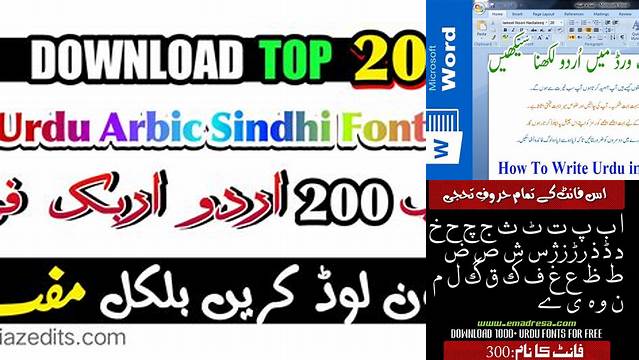
Download Free Urdu Fonts For Word 2007
Hey guys! Are you looking to spice up your Microsoft Word 2007 documents with some beautiful Urdu fonts? You've come to the right place! Using the right font can make your documents look professional and engaging, especially when writing in a language like Urdu that has such a rich calligraphic tradition. In this article, we'll dive deep into how to find, download, and install free Urdu fonts, specifically for Microsoft Word 2007. We’ll also cover some common issues you might face and how to troubleshoot them. So, let's get started and make your documents stand out!
1. Why Use Urdu Fonts in Microsoft Word 2007?
Using Urdu fonts in Microsoft Word 2007 can greatly enhance the aesthetic appeal and readability of your documents. Urdu, with its elegant script, adds a touch of sophistication and cultural richness to any written material. Whether you are drafting a formal letter, creating a presentation, or composing a creative piece, the right Urdu font can make a significant difference. The clarity and style of the font can improve the overall impression and ensure that your message is conveyed effectively. Moreover, using specific Urdu fonts can also cater to different contexts and audiences. For instance, a traditional Naskh font might be suitable for formal documents, while a more stylized font could be used for creative projects. This versatility allows you to tailor your documents to suit various needs and preferences, making them more engaging and impactful. Ultimately, the use of appropriate Urdu fonts demonstrates attention to detail and a commitment to presenting your content in the best possible light. This not only enhances the visual appeal but also ensures that your documents are easily readable and professionally presented.
3. Top Urdu Fonts for Microsoft Word 2007
When it comes to choosing the top Urdu fonts for Microsoft Word 2007, several options stand out for their readability, aesthetic appeal, and compatibility. One popular choice is Alvi Nastaleeq, renowned for its elegant and flowing script, making it ideal for formal documents and creative writing alike. Another excellent option is Nafees Nastaleeq, which is widely used in Urdu publishing and is known for its clarity and legibility. For those seeking a more contemporary look, Jameel Noori Nastaleeq is a great option, offering a modern twist on traditional Nastaleeq styles. In addition to Nastaleeq fonts, there are also Naskh fonts like Urdu Typesetting and Noori Naskh, which are often preferred for their simplicity and readability, especially in digital formats. These fonts are particularly useful for body text and documents where clarity is paramount. When selecting a font, it's essential to consider the context and purpose of your document. A formal letter might benefit from a classic Nastaleeq font, while a presentation could utilize a bolder, more stylized font to capture the audience's attention. Ultimately, the best Urdu font is the one that best complements your content and enhances its overall impact. Experimenting with different fonts can help you discover the perfect fit for your specific needs.